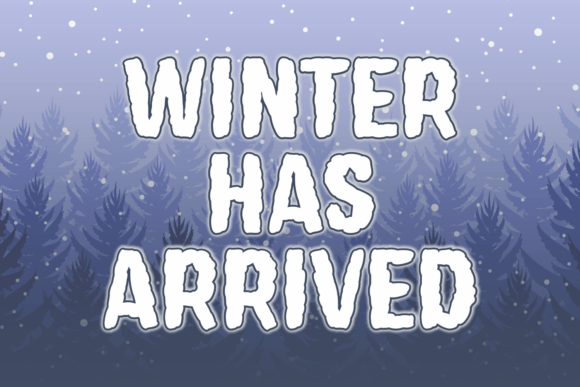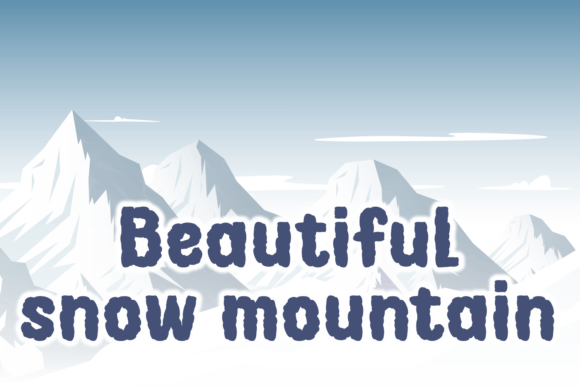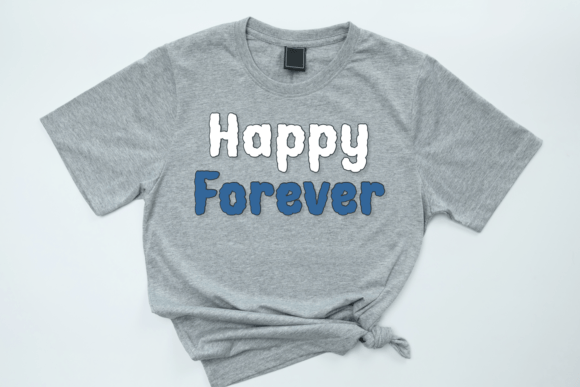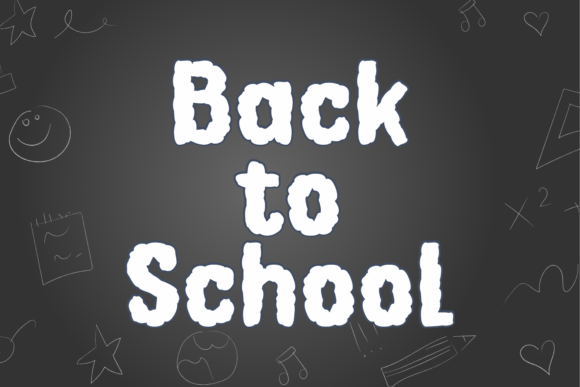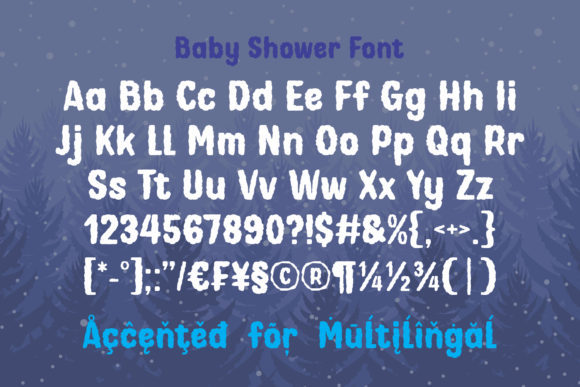
Discover the Enchanting Allure of Cloudy Weather Font
Are you tired of using the same old fonts in your designs? Look no further than Cloudy Weather, a unique and artistic typeface that evokes the delightful crunch of fresh snow underfoot and the pure, infectious joy of uncontained laughter. Masterfully crafted by talented creatives at 7ntypes, this font is sure to add a touch of magic to your designs.
The Inspiration Behind Cloudy Weather
Cloudy Weather is more than just a font – it’s an experience. The creators at 7ntypes drew inspiration from the simple pleasures in life, like walking on a crunchy snow-covered path or laughing with friends on a cold winter day. They aimed to capture the essence of these moments in a typeface that would bring a sense of wonder and joy to anyone who uses it.
What Makes Cloudy Weather Special
So, what sets Cloudy Weather apart from other fonts? Here are a few features that make it truly special:
- Unique Design: Cloudy Weather boasts an artistic blend of curves and lines that give it a distinctive look. Its elegant and whimsical design makes it perfect for a wide range of design projects, from educational materials to multilingual contexts.
- Accents for Cross-Cultural Dialogue: The font features thoughtfully designed accents that promote natural, cross-cultural dialogue. This makes it an excellent choice for designers who work on projects that require multilingual support.
- Legibility: Despite its artistic design, Cloudy Weather remains highly legible, even at small font sizes. This makes it suitable for use in educational settings, where clarity is essential.
Using Cloudy Weather in Your Designs
Cloudy Weather is a versatile font that can be used in a variety of design projects. Here are a few ideas to get you started:
- Educational Materials: The font’s legibility and unique design make it perfect for textbooks, workbooks, and other educational materials.
- Multilingual Projects: Cloudy Weather’s accents and thoughtful design make it an excellent choice for projects that require multilingual support.
- Branding and Advertising: The font’s whimsical design and elegant curves make it suitable for use in branding and advertising projects, such as logos, brochures, and flyers.
Tips for Pairing Cloudy Weather with Other Fonts
Pairing Cloudy Weather with other fonts can add depth and interest to your designs. Here are a few tips to keep in mind:
- Contrast with Sans-Serifs: Pair Cloudy Weather with a sans-serif font to create a striking contrast between elegant curves and clean lines.
- Match with Script Fonts: Combine Cloudy Weather with a script font to create a cohesive look that’s perfect for branding and advertising projects.
Cloudy Weather is a unique and enchanting font that’s sure to add a touch of magic to your designs. With its artistic design, thoughtful accents, and high legibility, it’s perfect for use in educational settings, multilingual contexts, and a wide range of design projects. So why settle for a ordinary font when you can immerse yourself in the enchanting allure of Cloudy Weather?